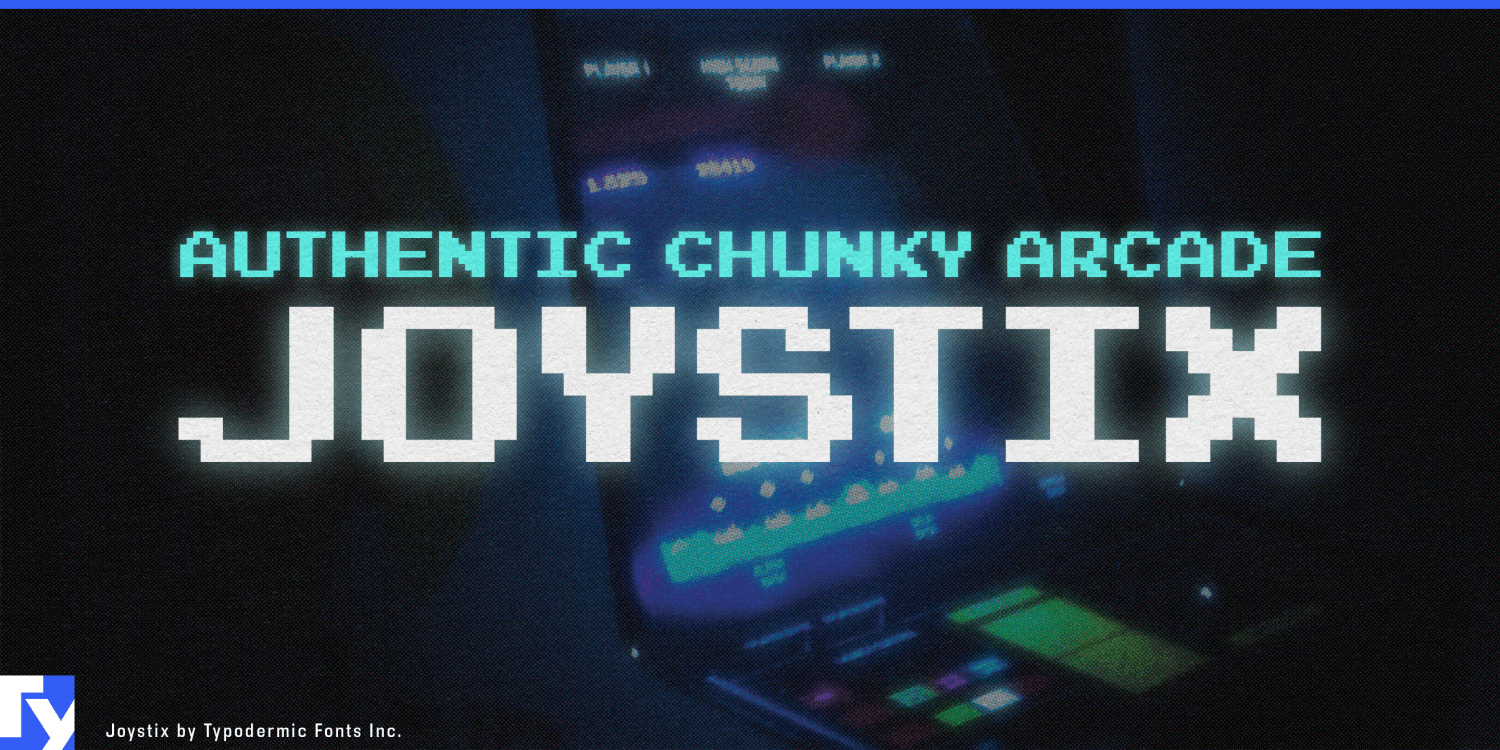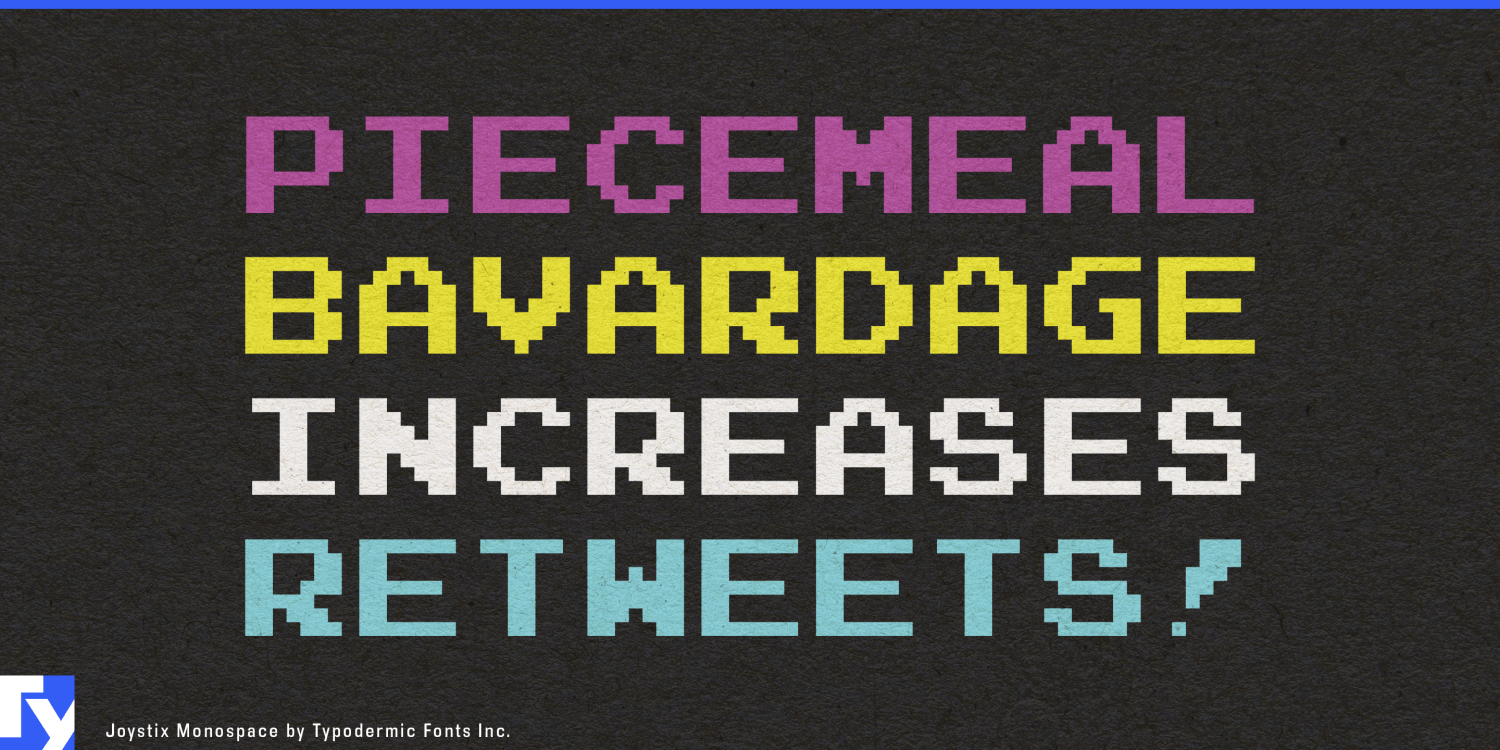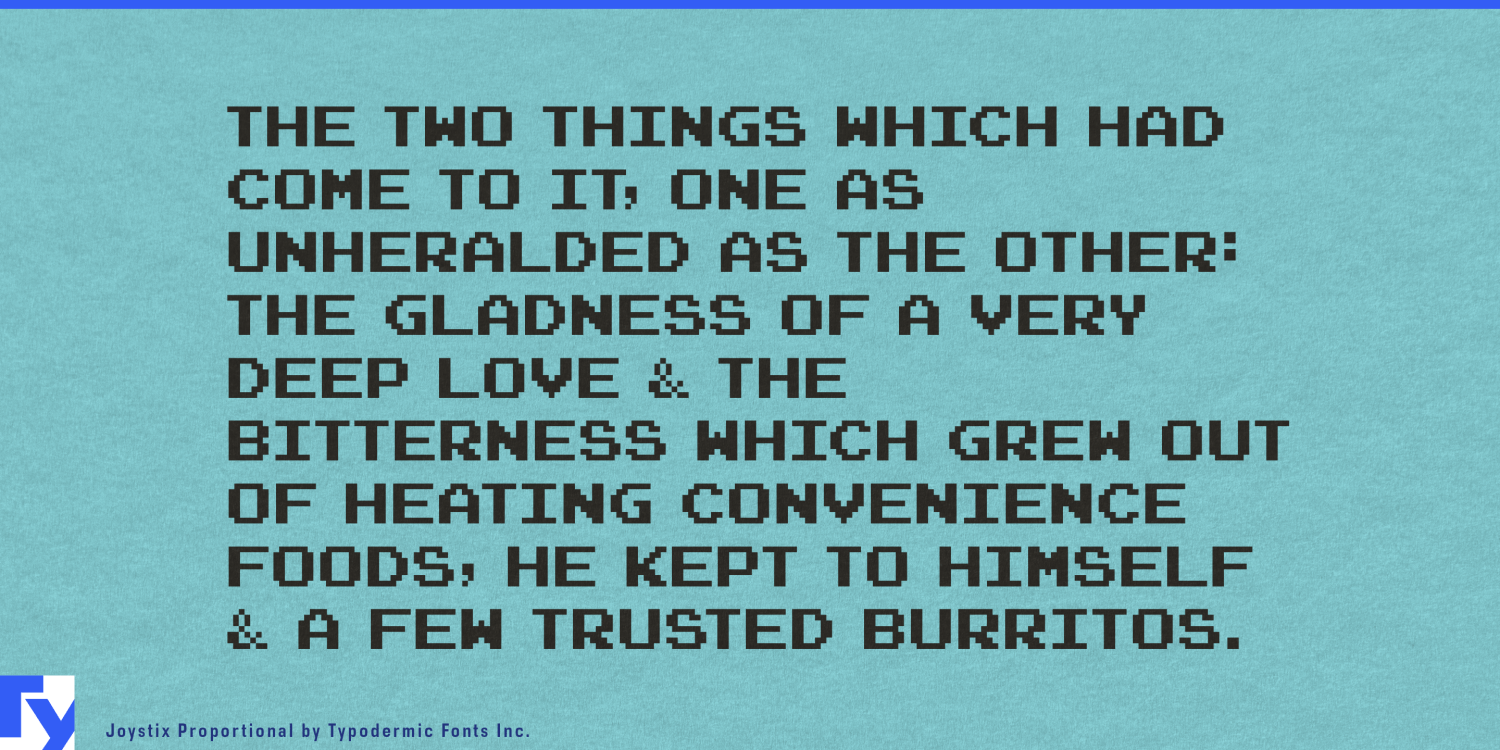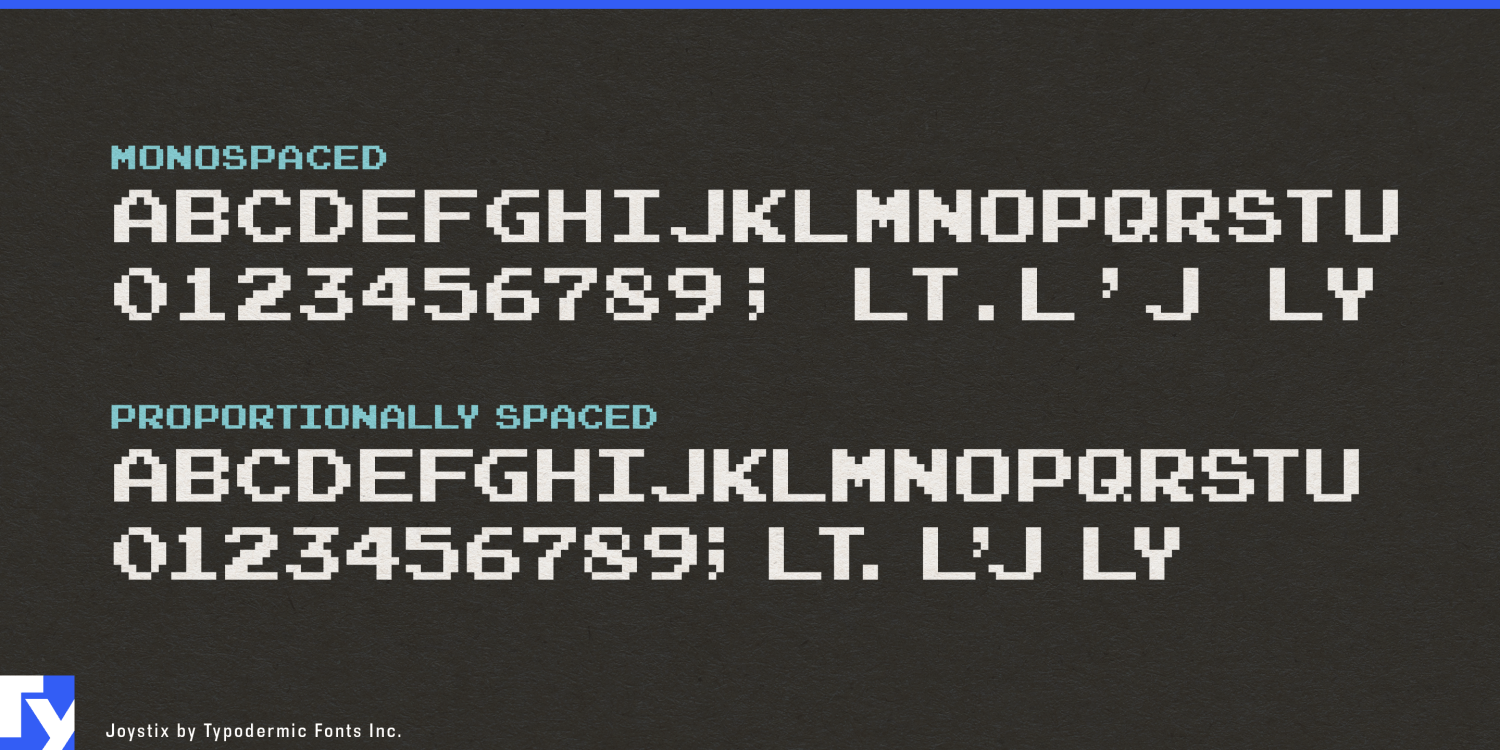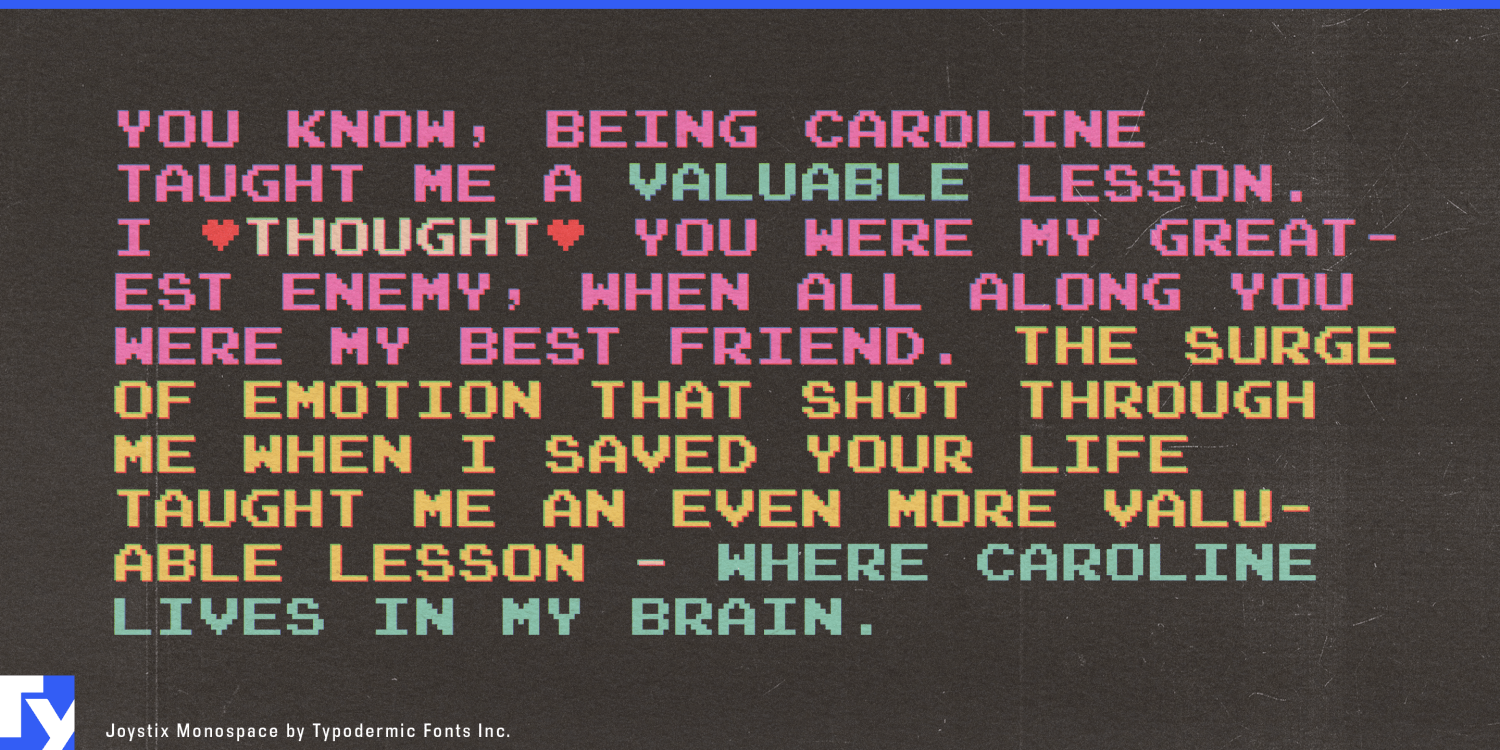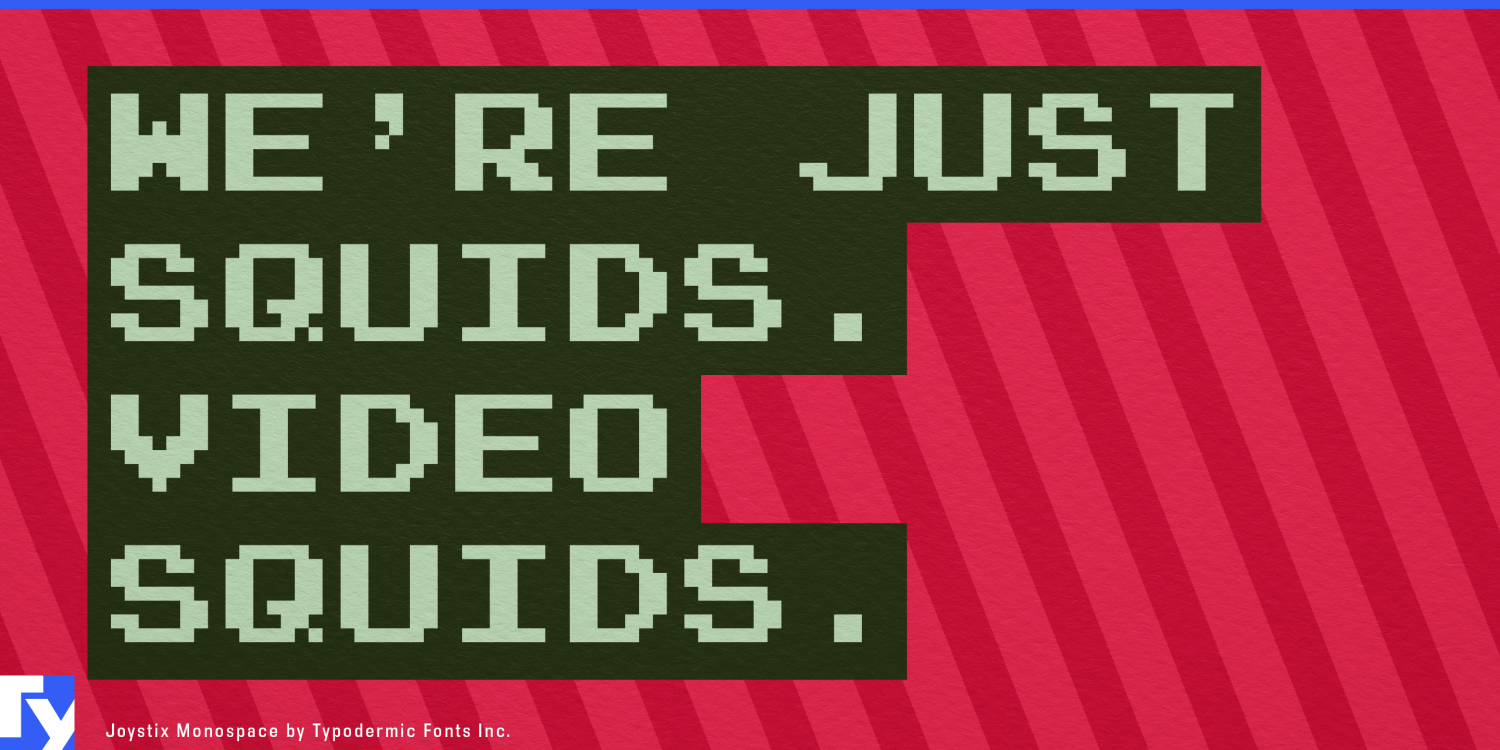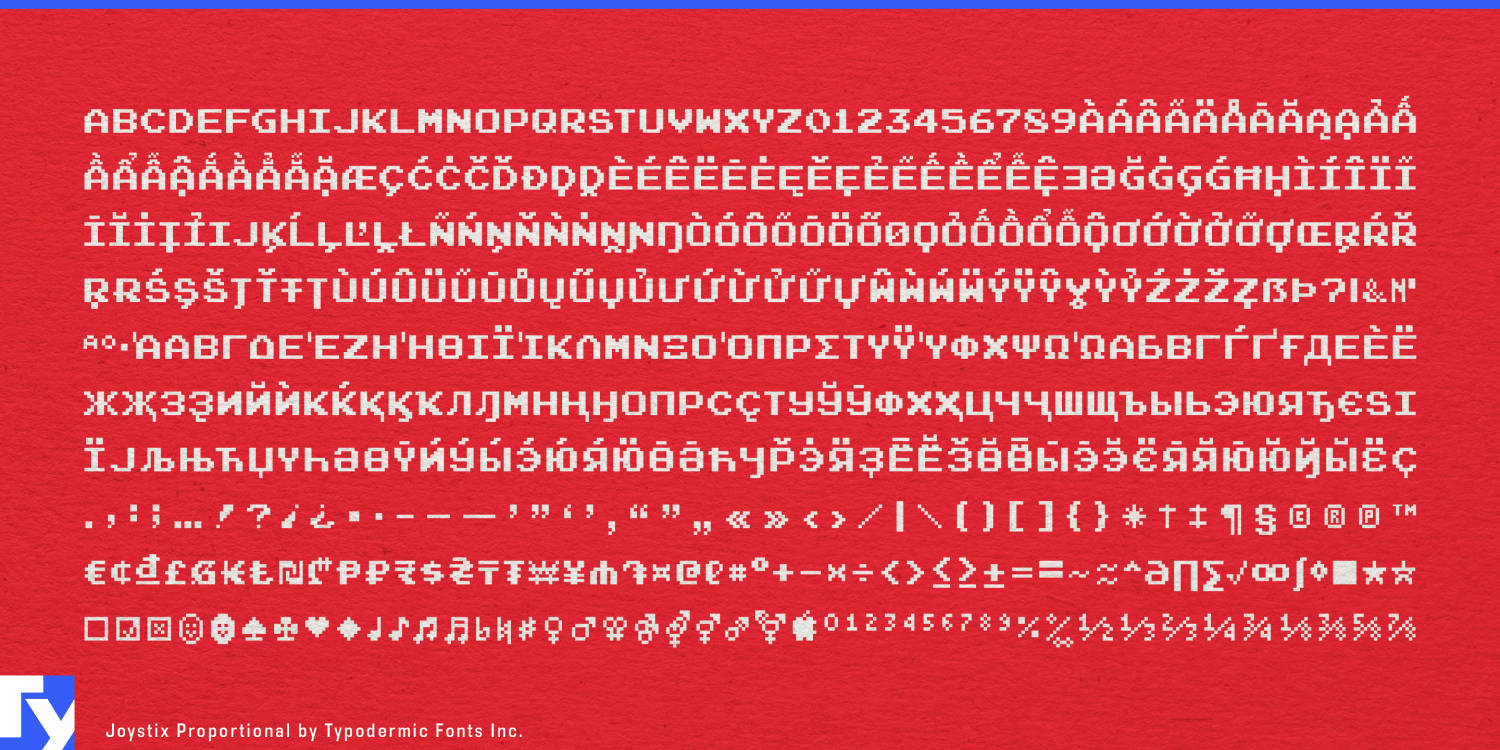
Joystix
Font Family by Typodermic
Classic arcade lettering was built for character cells. That fixed-width rhythm is part of what makes it look authentic, but it can become a problem the moment the typography leaves the game screen. Enlarge it for a remaster title, product name, exhibition wall, or launch graphic and the gaps around narrow letters can start to look accidental rather than nostalgic.
Joystix Proportional keeps the familiar all-caps arcade construction while letting each character occupy the space it actually needs. Narrow letters tighten up, wider forms retain their room, and kerning gives headlines a cleaner, more deliberate fit. The result still reads immediately as classic arcade lettering, but it behaves more naturally when the job is graphic design rather than a simulated score table.
That distinction is especially useful for retro-game remakes, remasters, anniversary collections, and franchise revivals. Fixed-width lettering can still make sense inside reconstructed game screens, while Joystix Proportional is better suited to key art, collection titles, trailers, storefront graphics, convention displays, and collector-edition packaging.
Contemporary gaming hardware presents a similar opportunity. Arcade sticks, leverless controllers, compact retro consoles, FPGA systems, specialty keyboards, replacement control panels, and other enthusiast hardware often need to signal classic arcade culture without pretending to be original period equipment. Joystix Proportional can handle product-series names, controller graphics, cartons, instruction covers, launch graphics, and trade-show displays without the conspicuous spacing of strict monospacing.
Commercial arcade spaces, gaming museums, interactive exhibitions, and themed attractions can use it for entrance titles, attraction names, leaderboard headings, wall graphics, token-card lettering, and event identities. Gaming-history documentaries and retrospectives gain the same advantage in chapter cards, decade markers, historical timelines, and anniversary graphics.
Joystix also carries a broader character set than many arcade-style display faces, giving designers more room for international names and multilingual material without abandoning the visual reference.
The design remains all caps deliberately. A conventional lowercase would make it more general-purpose, but it would also dilute the particular arcade language Joystix is meant to preserve. When authenticity calls for rigid character cells, monospaced arcade lettering remains the right solution. When the same visual language needs cleaner headlines, tighter product names, and more polished display typography, Joystix Proportional is built for that job.